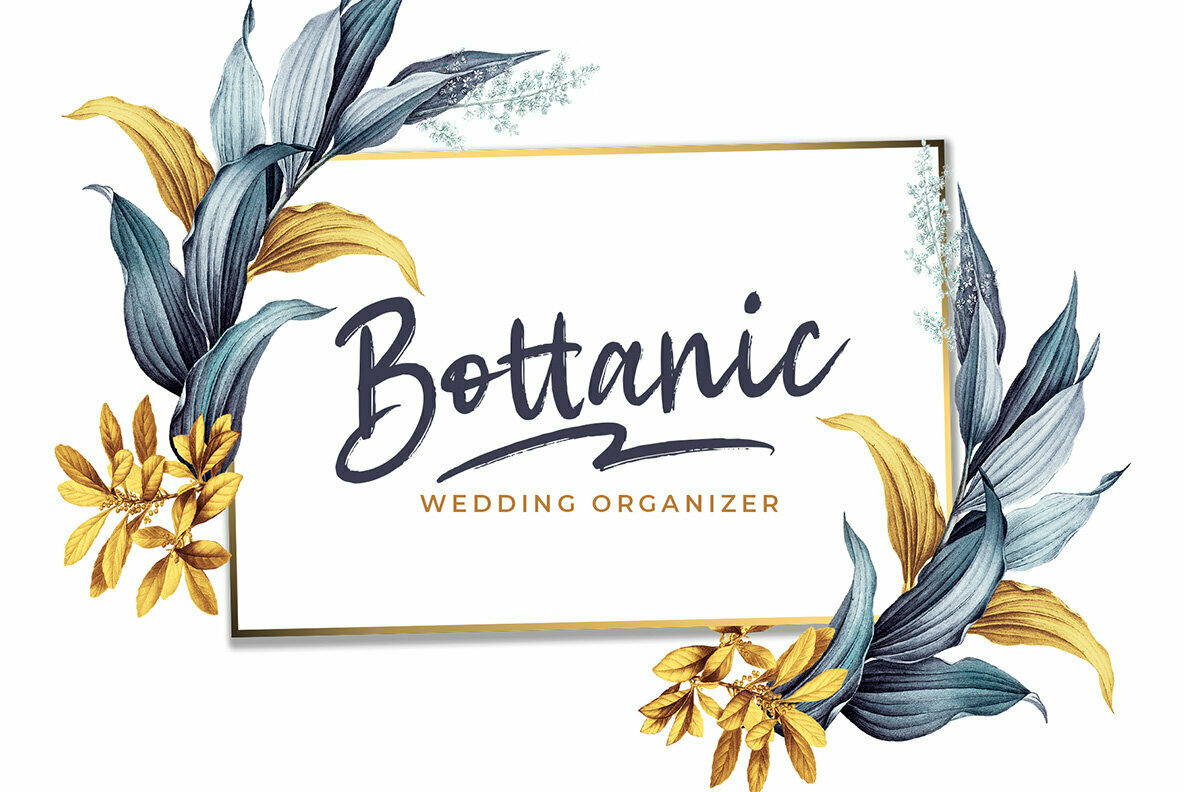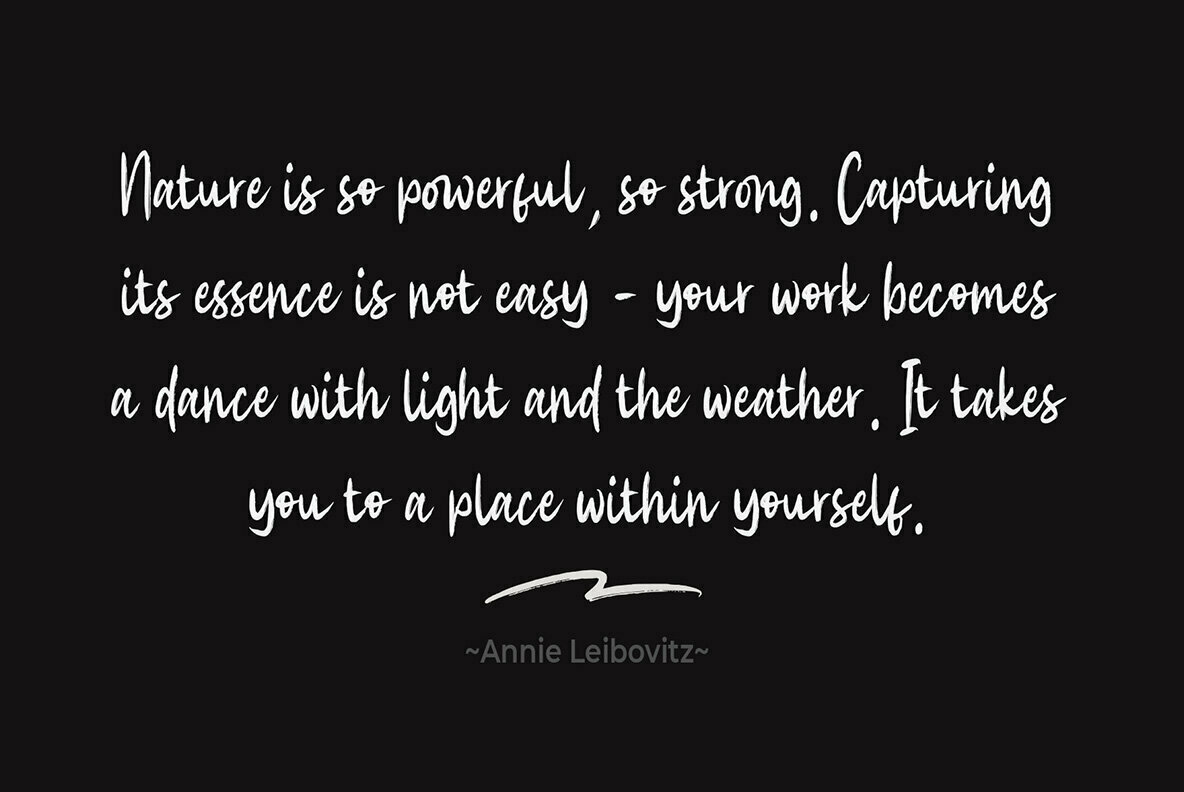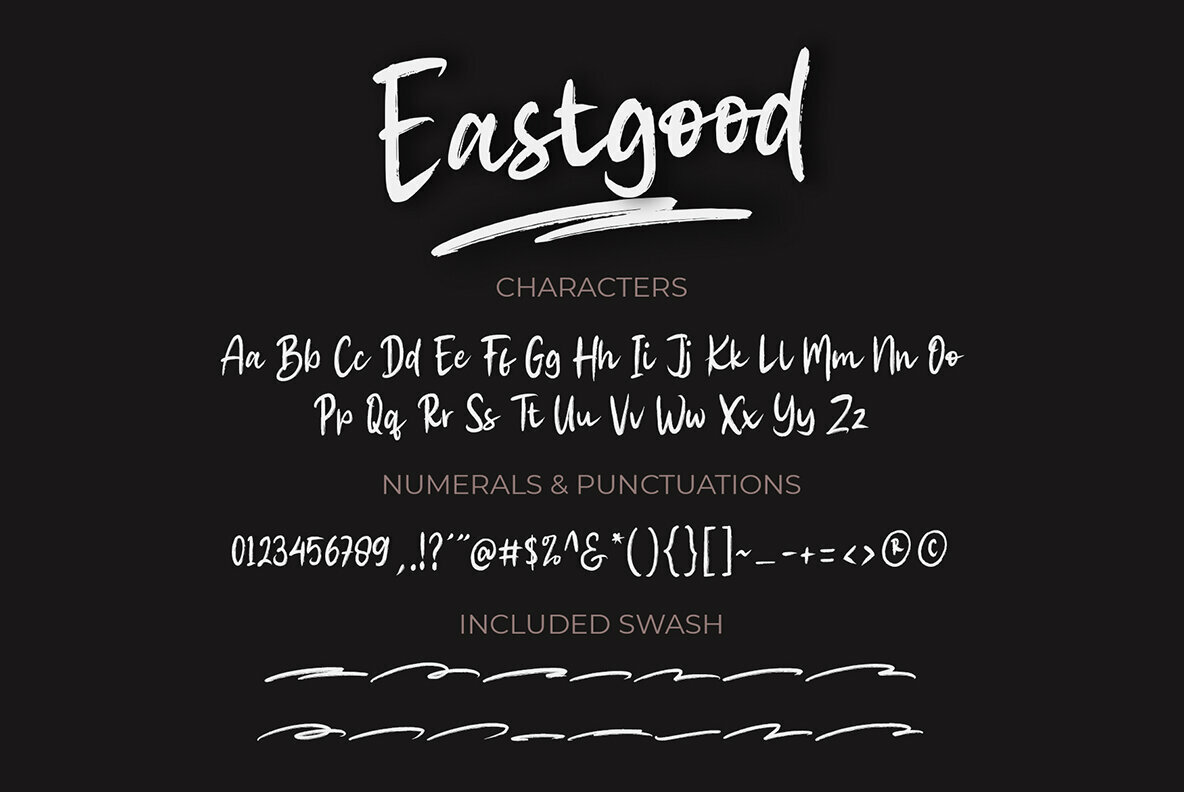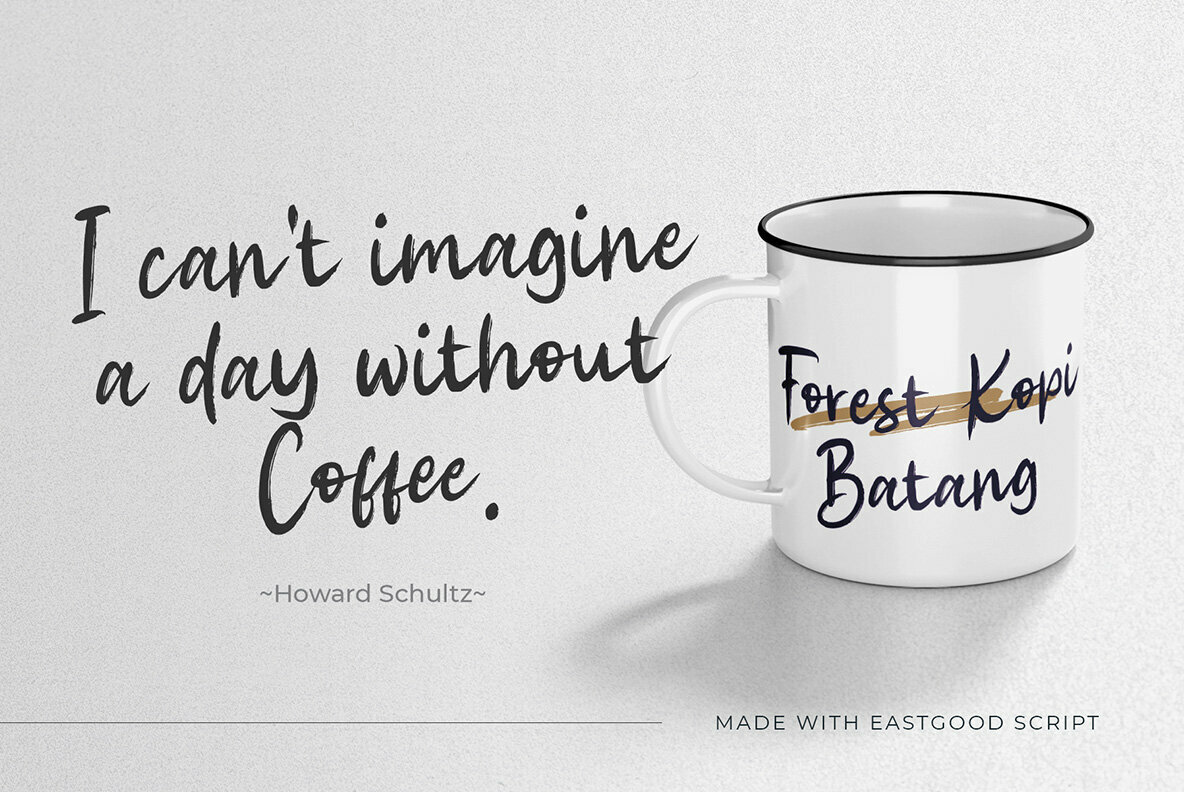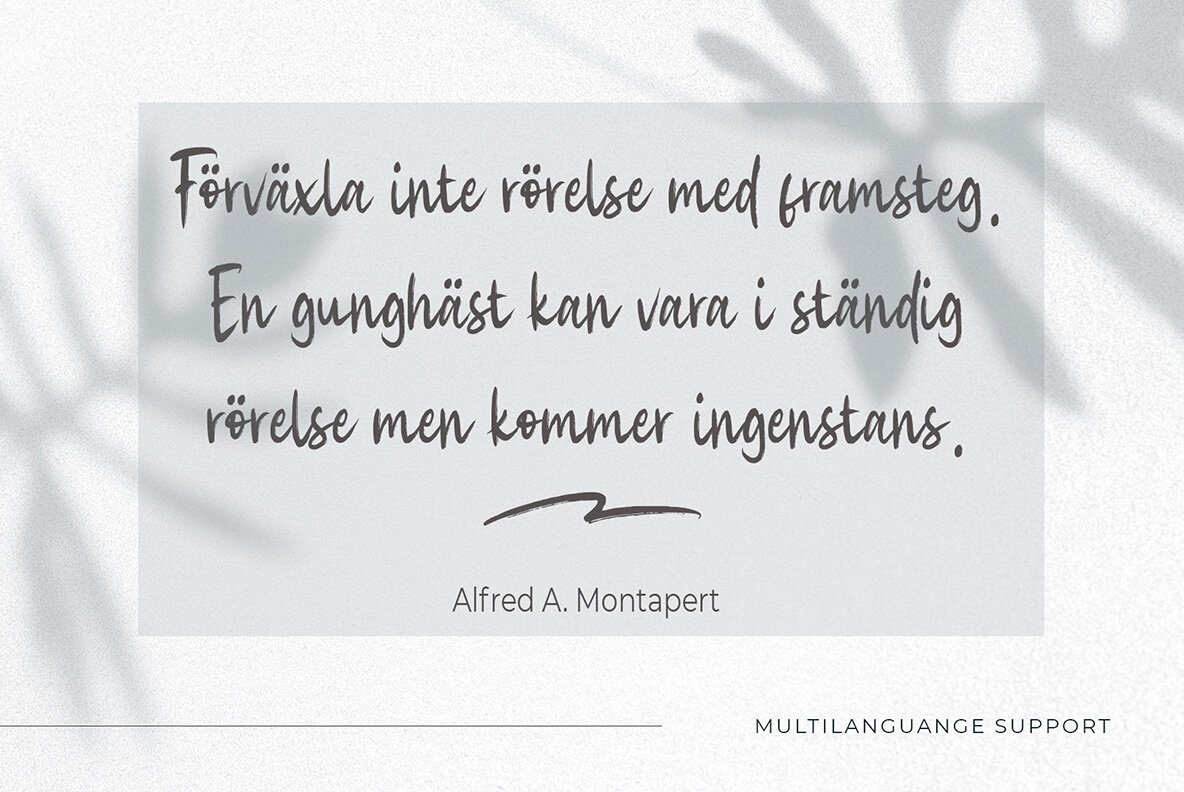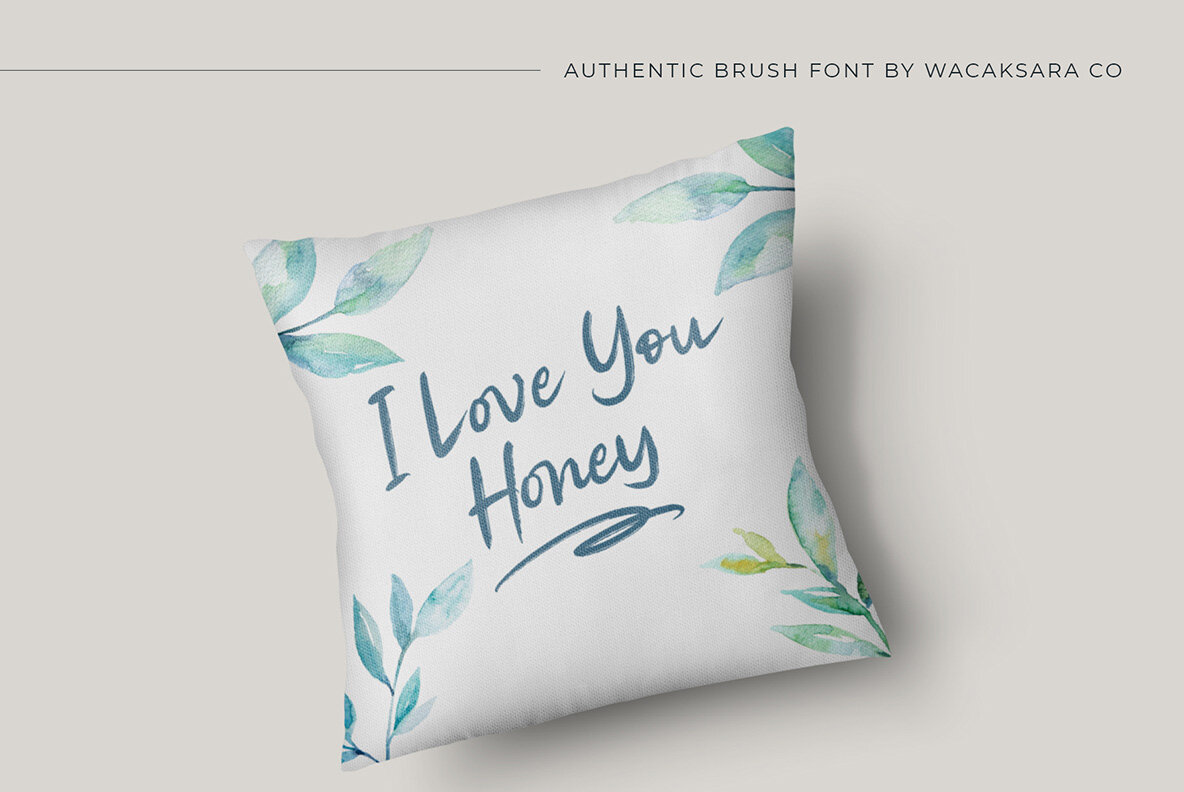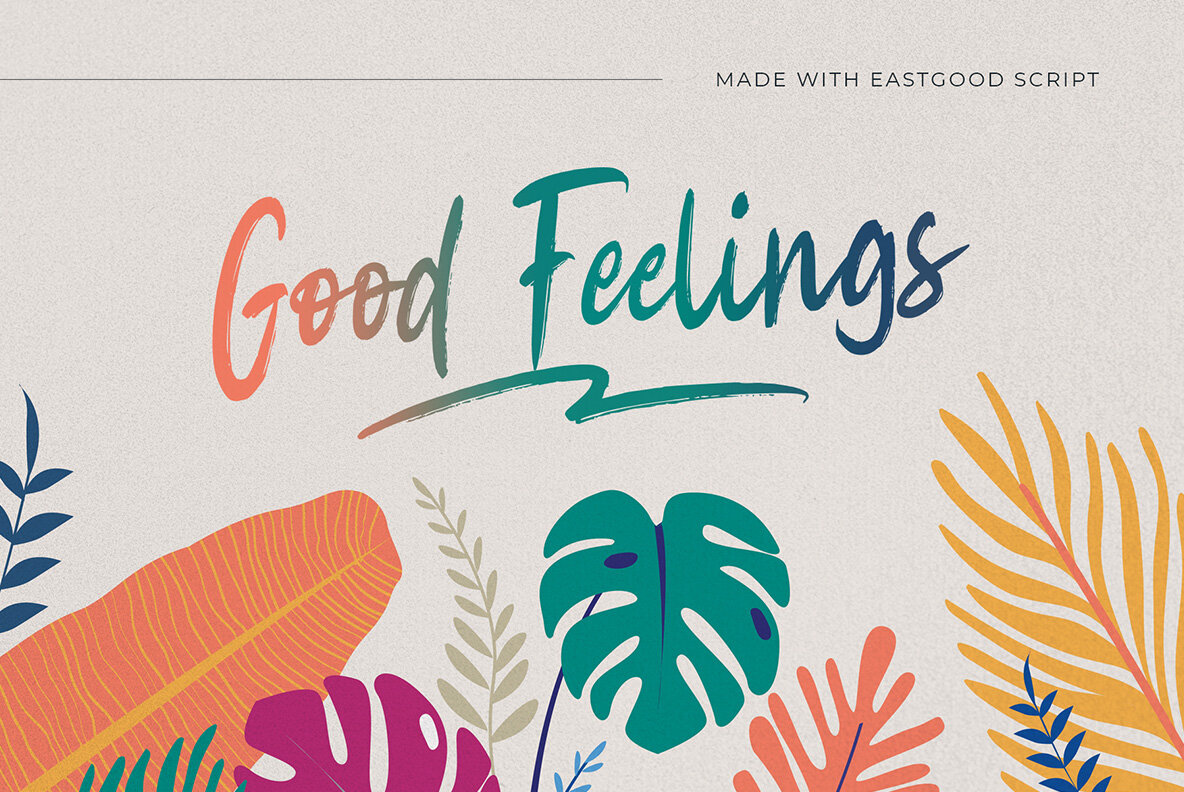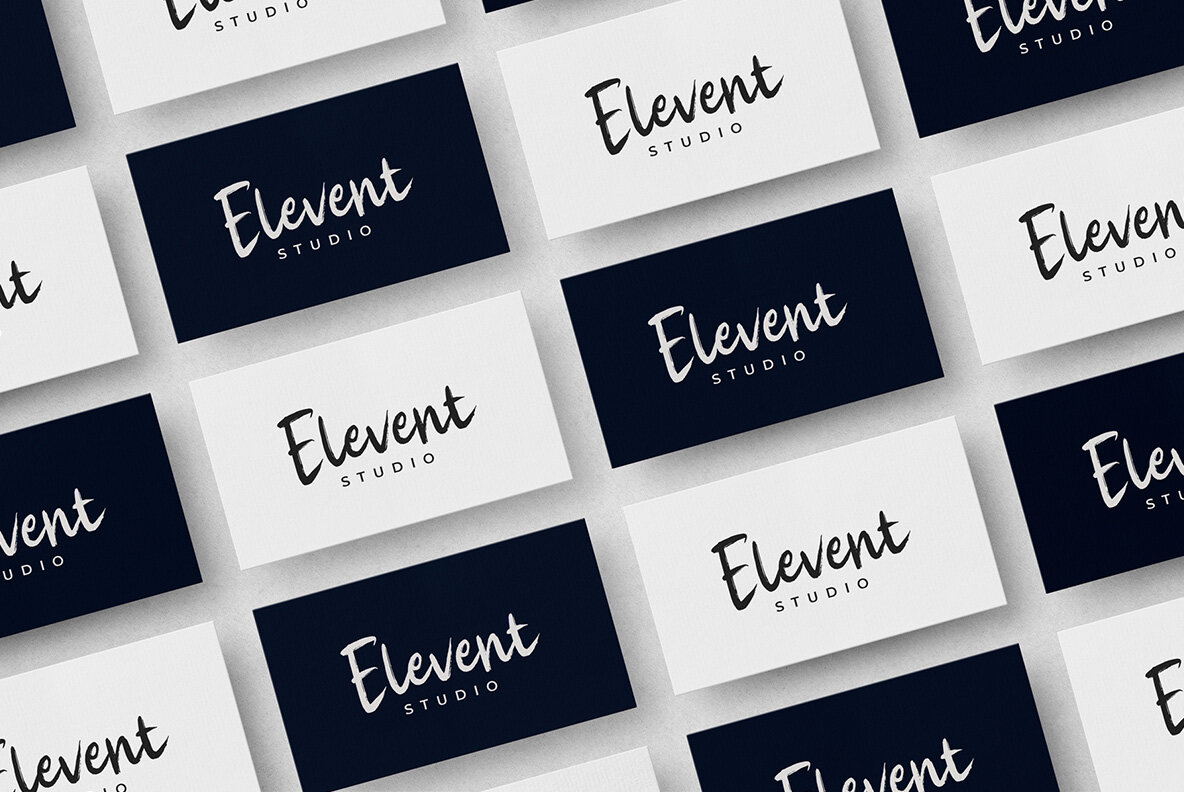
Eastgood Font
Eastgood Regular
Eastgood Swash
Eastgood stands out as a dynamic hand brush script font that brings a touch of excitement to every design. It is exceptionally versatile, making it a perfect choice for a wide range of creative projects such as logotypes, printed quotes, invitations, cards, product packaging, headers, letterheads, posters, apparel design, and labels. Designed with dramatic movement, Eastgood comes complete with uppercase, lowercase, numerals, punctuations, and abundant variations on each character. It also includes OpenType alternates and common ligatures, providing endless possibilities for customizing your work to achieve the desired impact.Eastgood: Bold Hand Brush Script Font